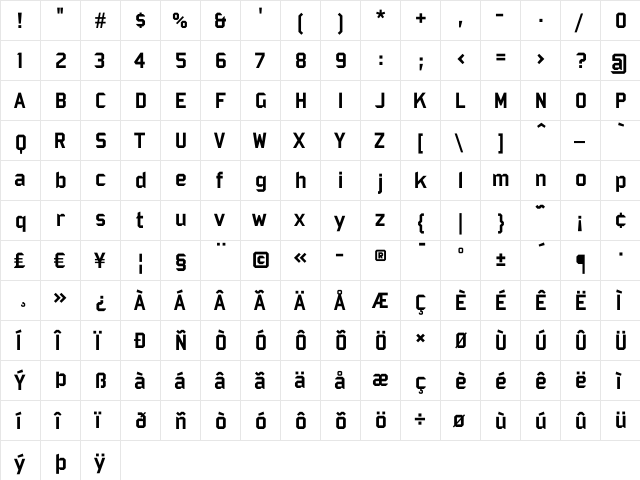
Bombardier Regular
Design Context for Bombardier Typeface
Bombardier takes a measured approach to typography — its balanced proportions and neutral character make it a reliable workhorse for both digital and print work.